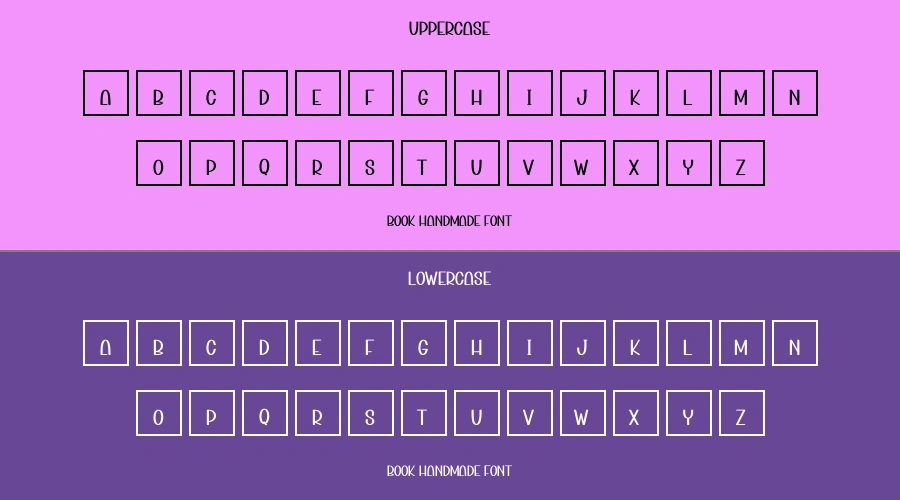
About Book Handmade Font
Book Handmade Font stands out for its distinctive combination of subtle details and accuracy. Ideal for product naming, it provides the legibility and technical precision that professional projects demand. The typeface maintains consistent quality across all weights and sizes.
Key features include refined rhythmic patterns and practical classic proportions, enhancing typographic expression. In headlines applications, Book Handmade Font demonstrates exceptional OCR compatibility. The curve radius and educational suitability contribute to its distinctive character and professional appeal.